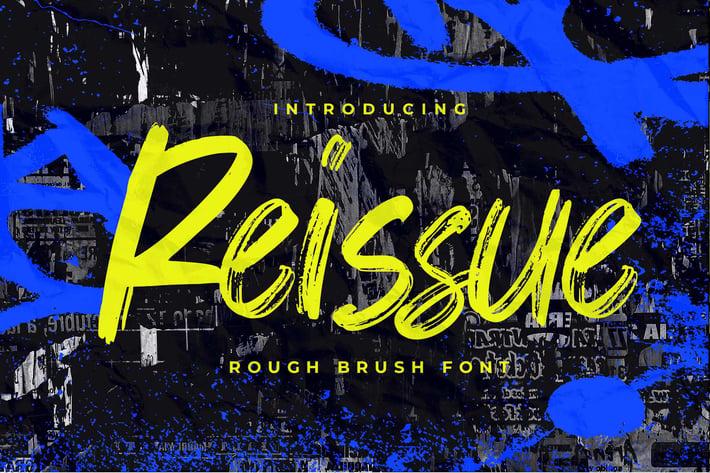
Reissue - Rough brush font
Reissue - Rough brush font with a natural handwritten feel. This handmade font will make your design has a beautiful natural touch for each detail. It is perfect for any design project as an Invitation, logo, book cover, craft, or any design purposes.